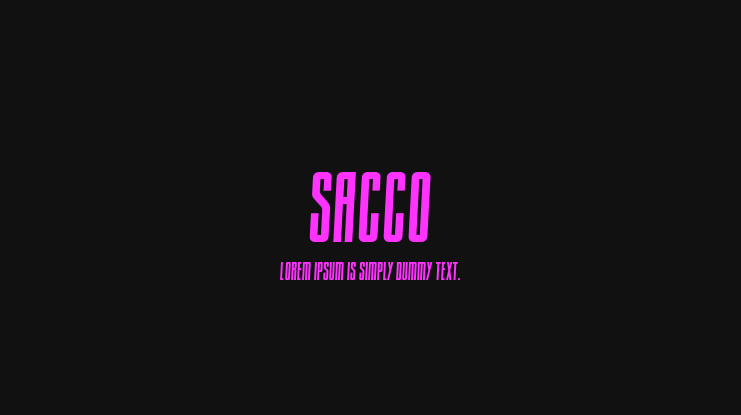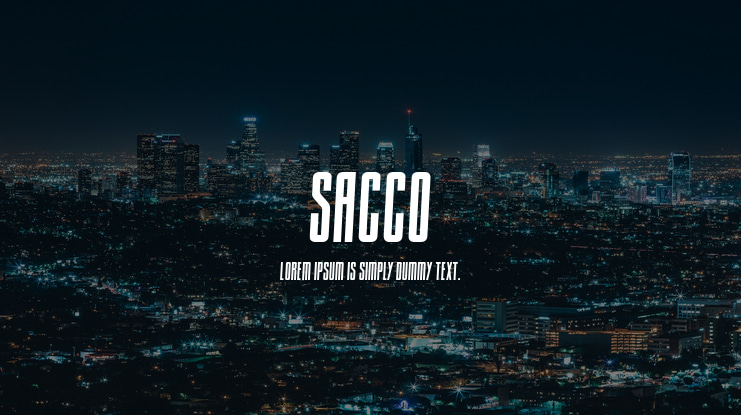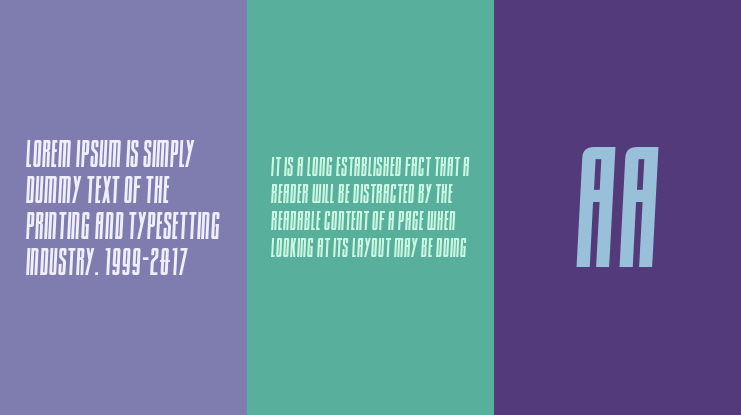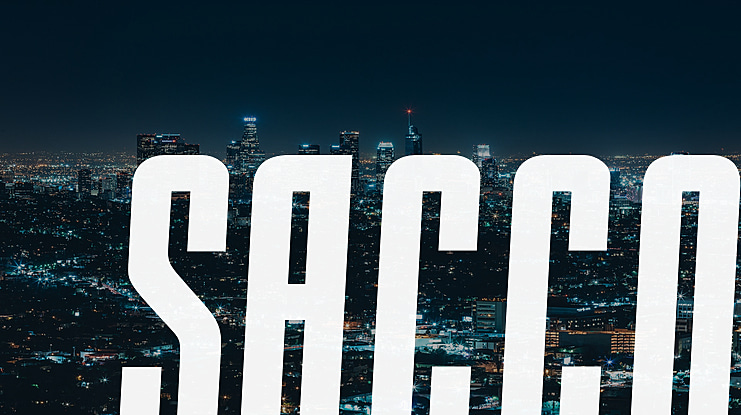
Sacco Font Family
Sacco is an all-caps sans serif display font, now in six condensed styles, ideal for large format and headlines. It comes in a single semibold weight, and features basic Latin, Western European, Greek and Cyrillic glyphs. Sacco's design combines aspects of the early modernism of the Bauhaus with the more realist and commercial typefaces designed by Morris Fuller Benton for American Type Founders (ATF). More info on the font at sacco.blueroomcollective.co.uk